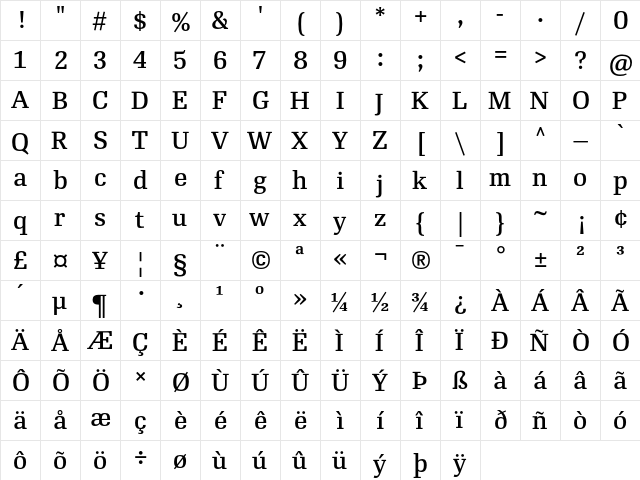
RePublic Text Regular Font Preview
RePublic Text Regular
RePublic Text Regular Font Details
| Foundry | Tomas Brousil, |
Design Context for RePublic Text Typeface
RePublic Text takes a measured approach to typography — its balanced proportions and neutral character make it a reliable workhorse for both digital and print work.